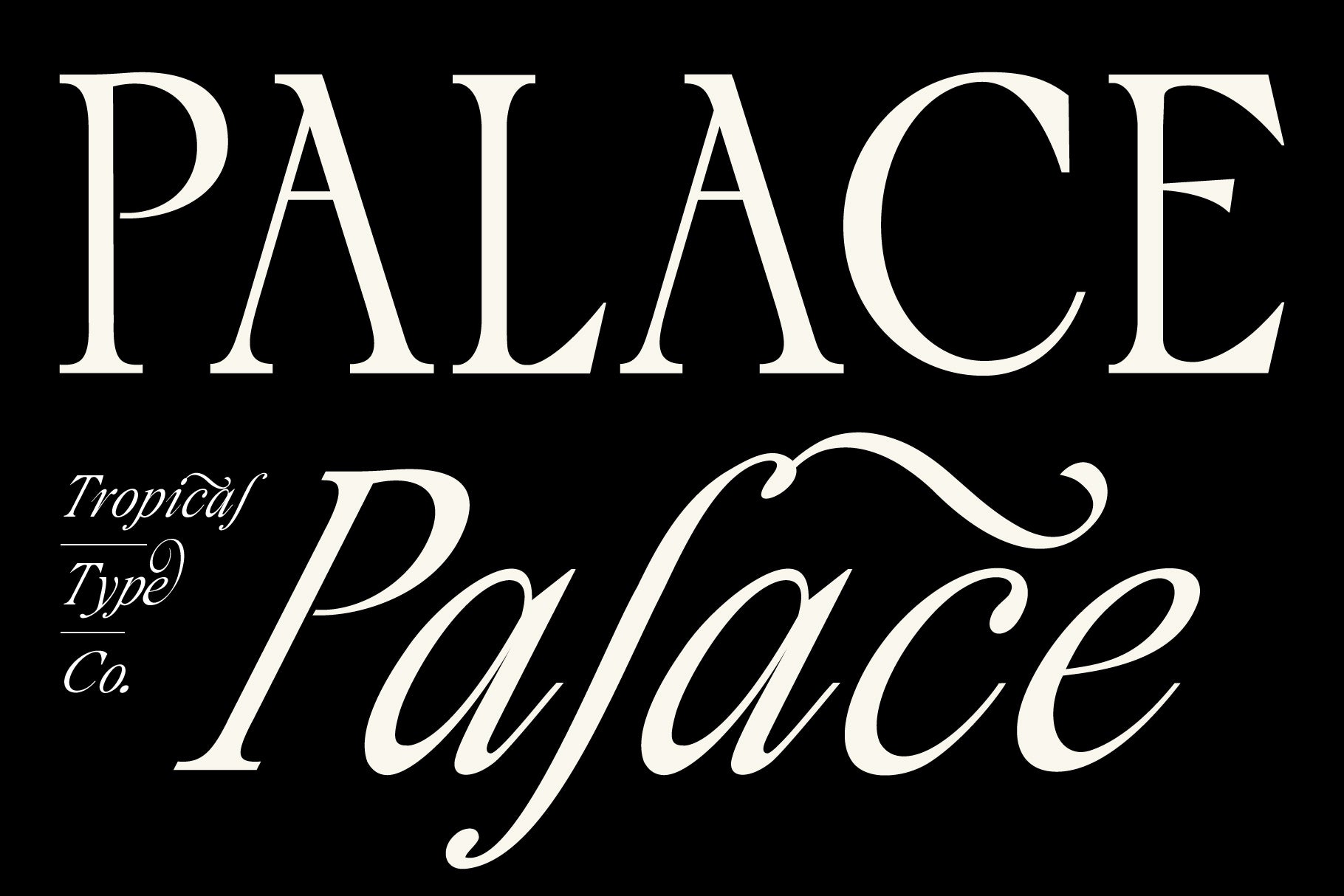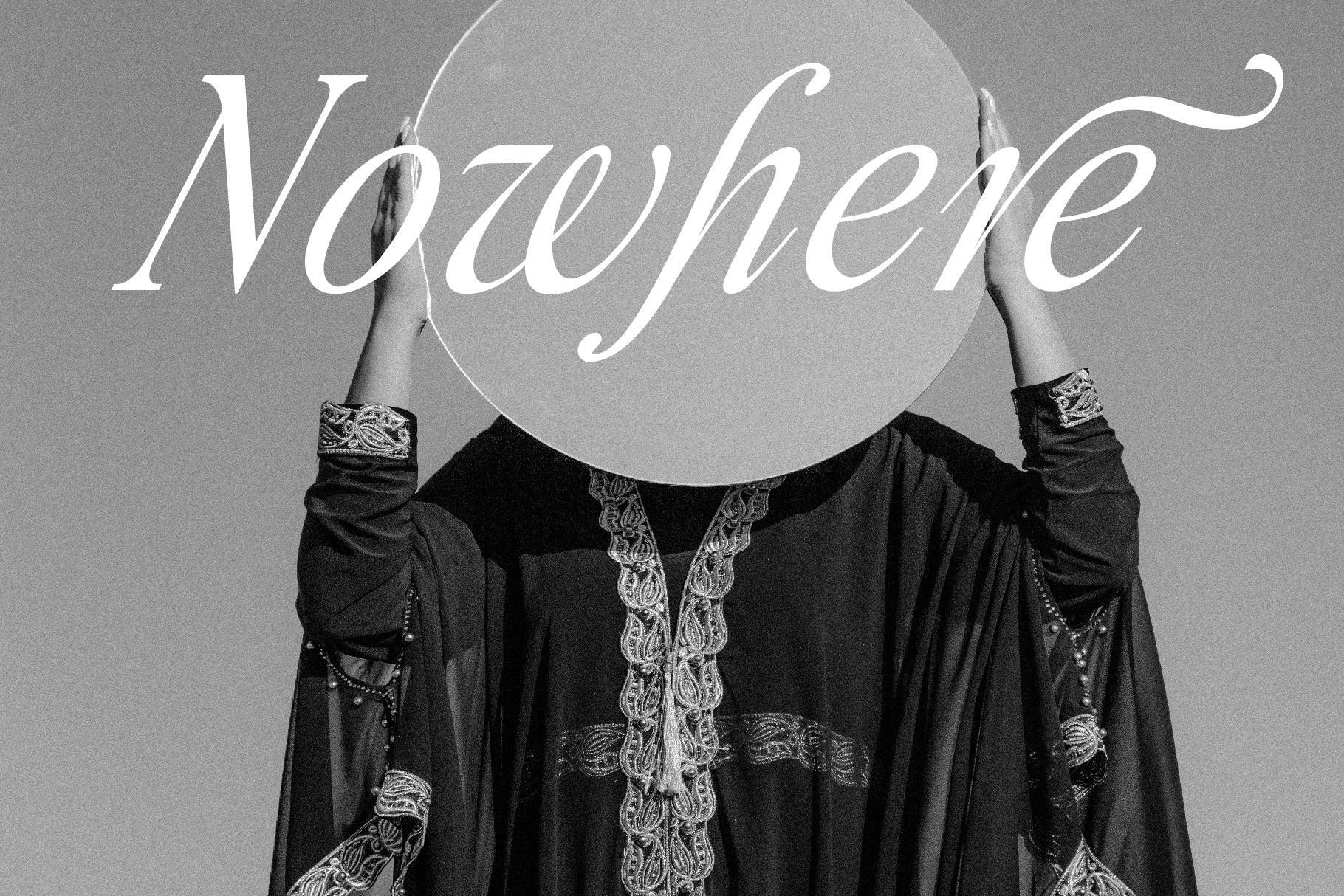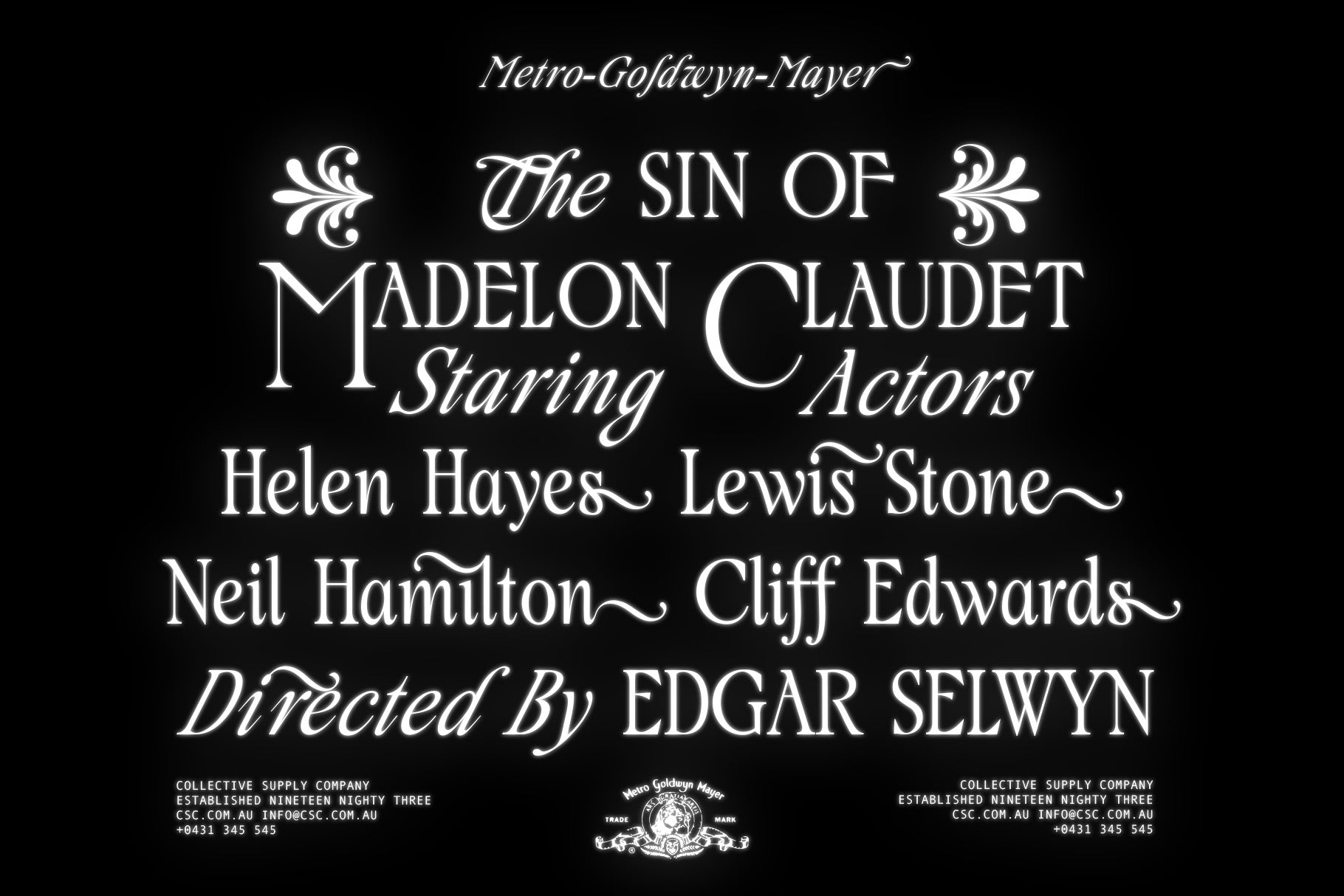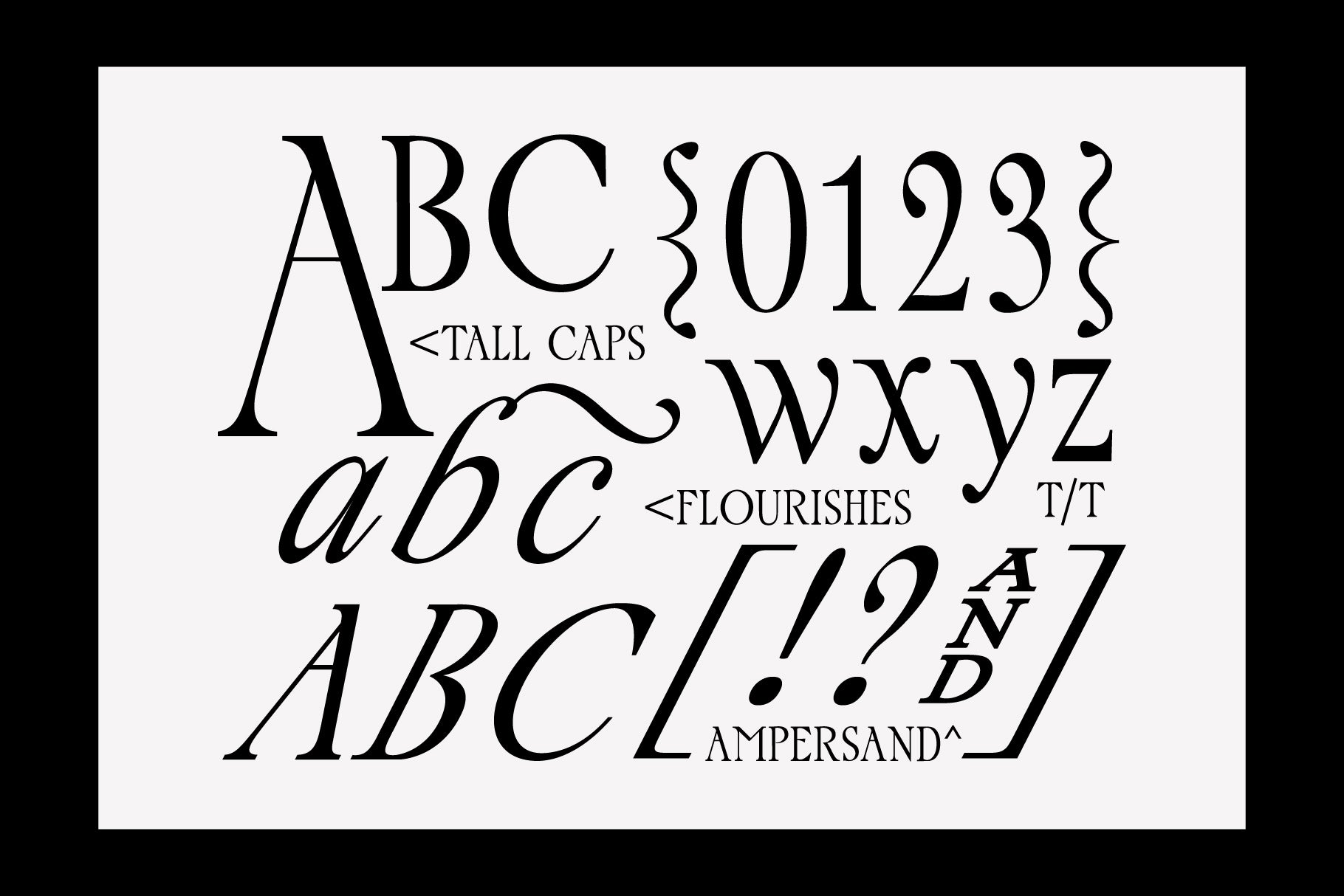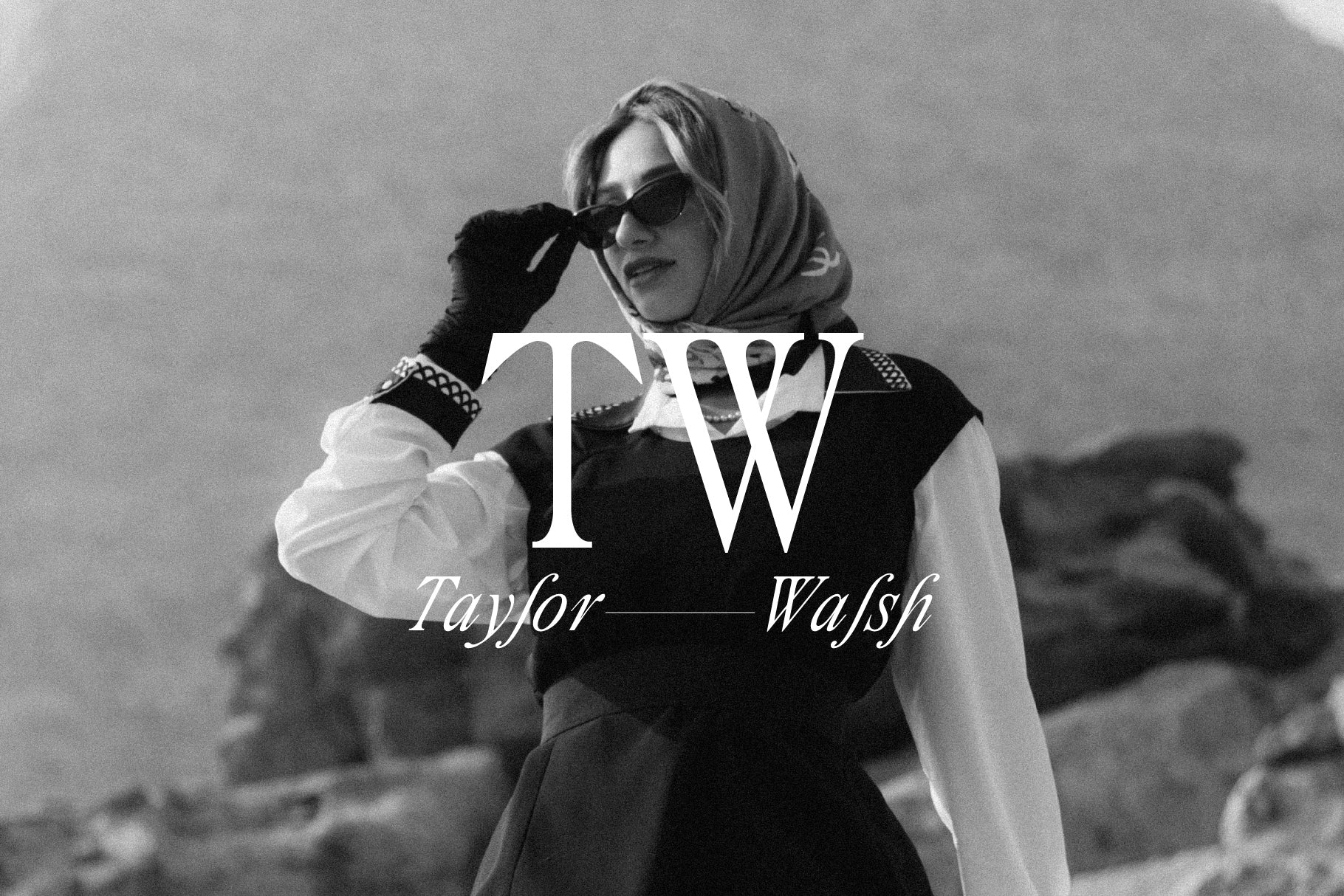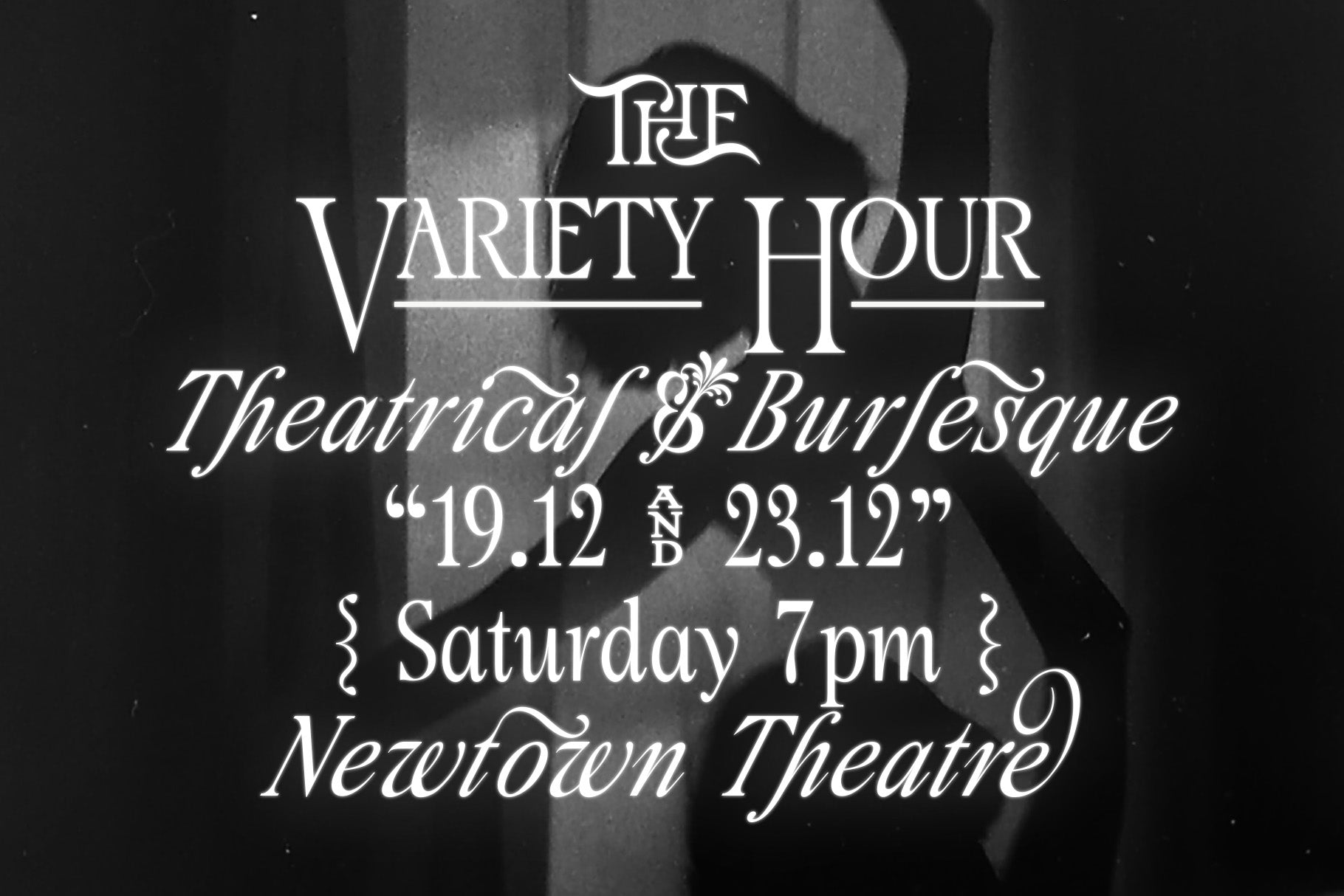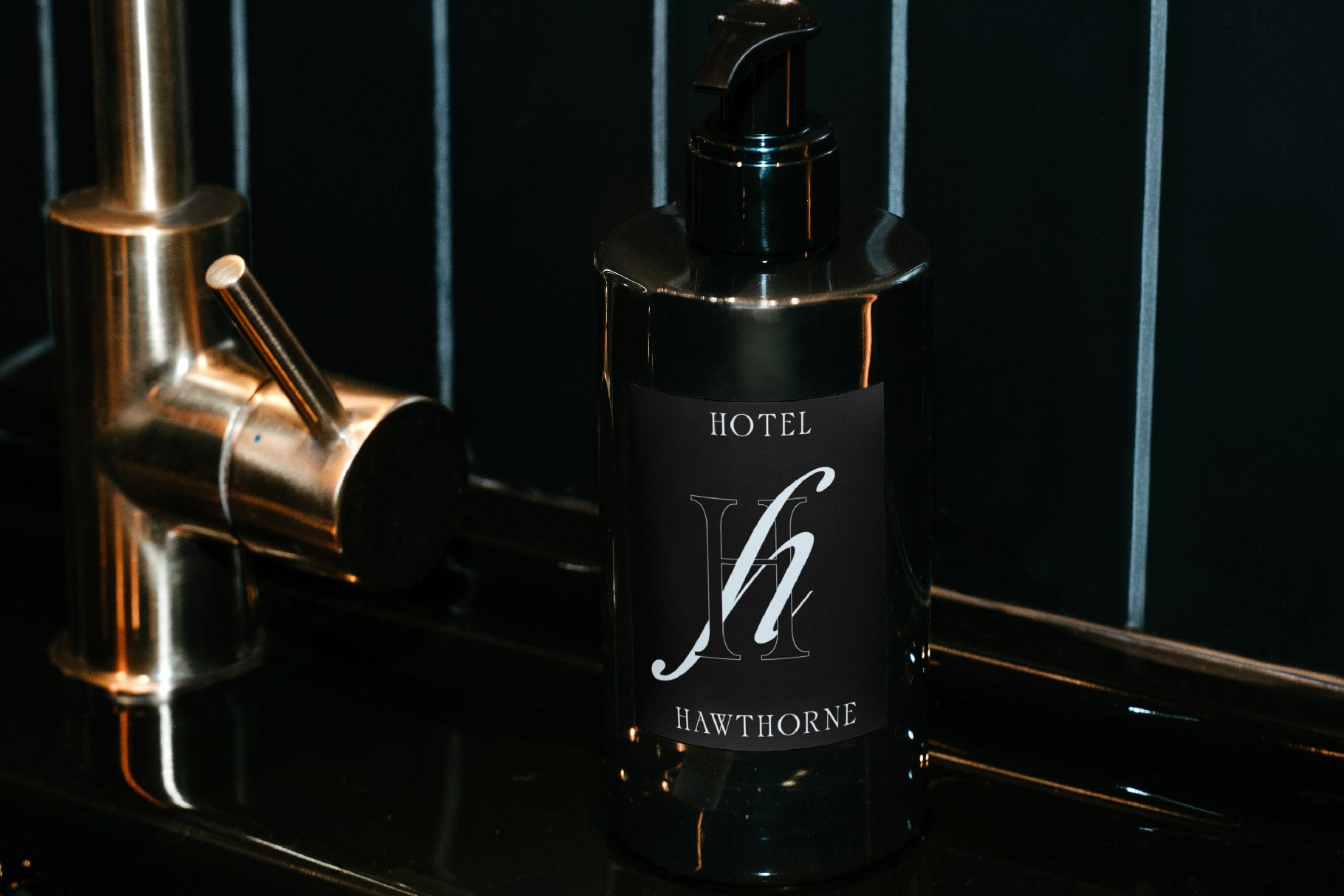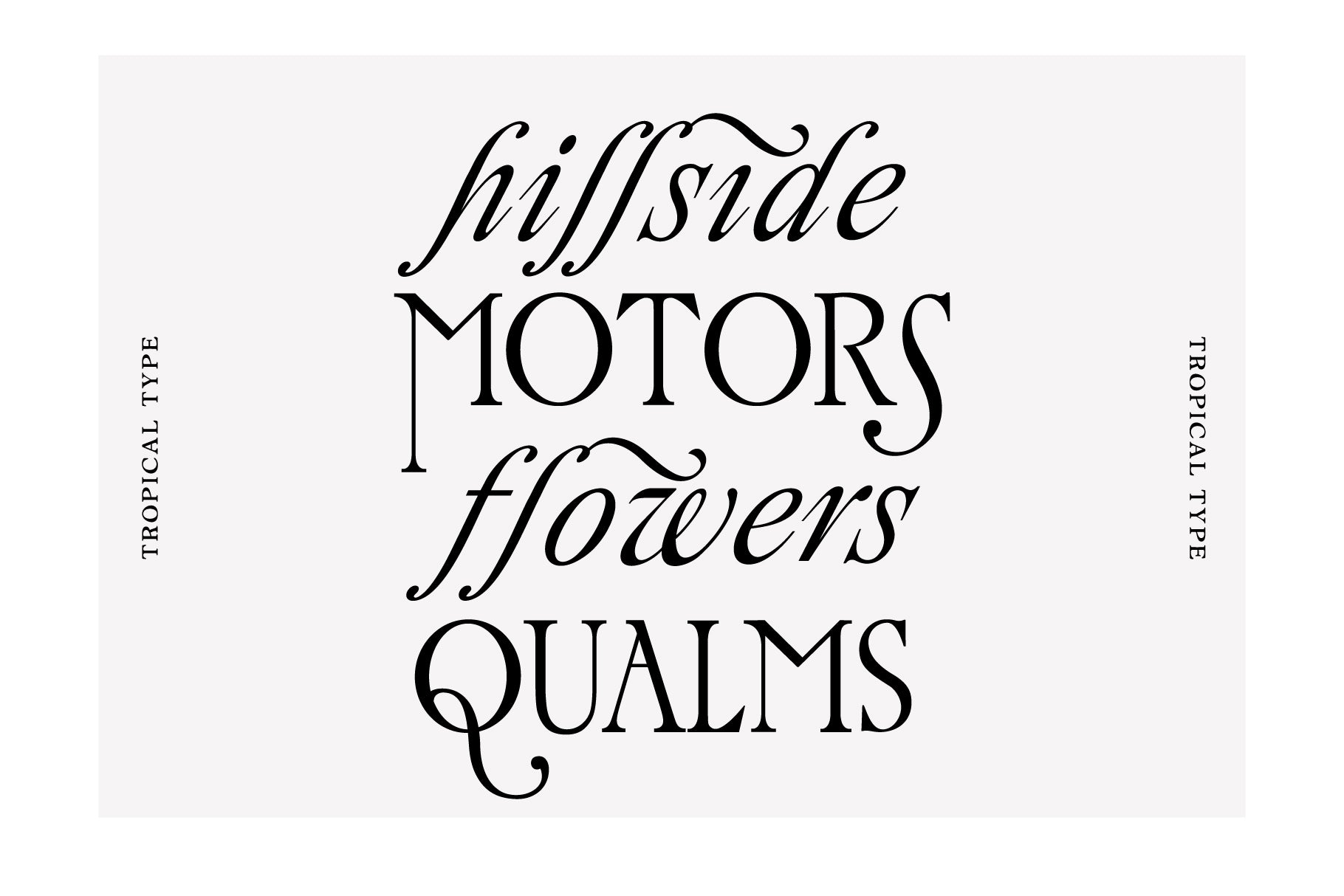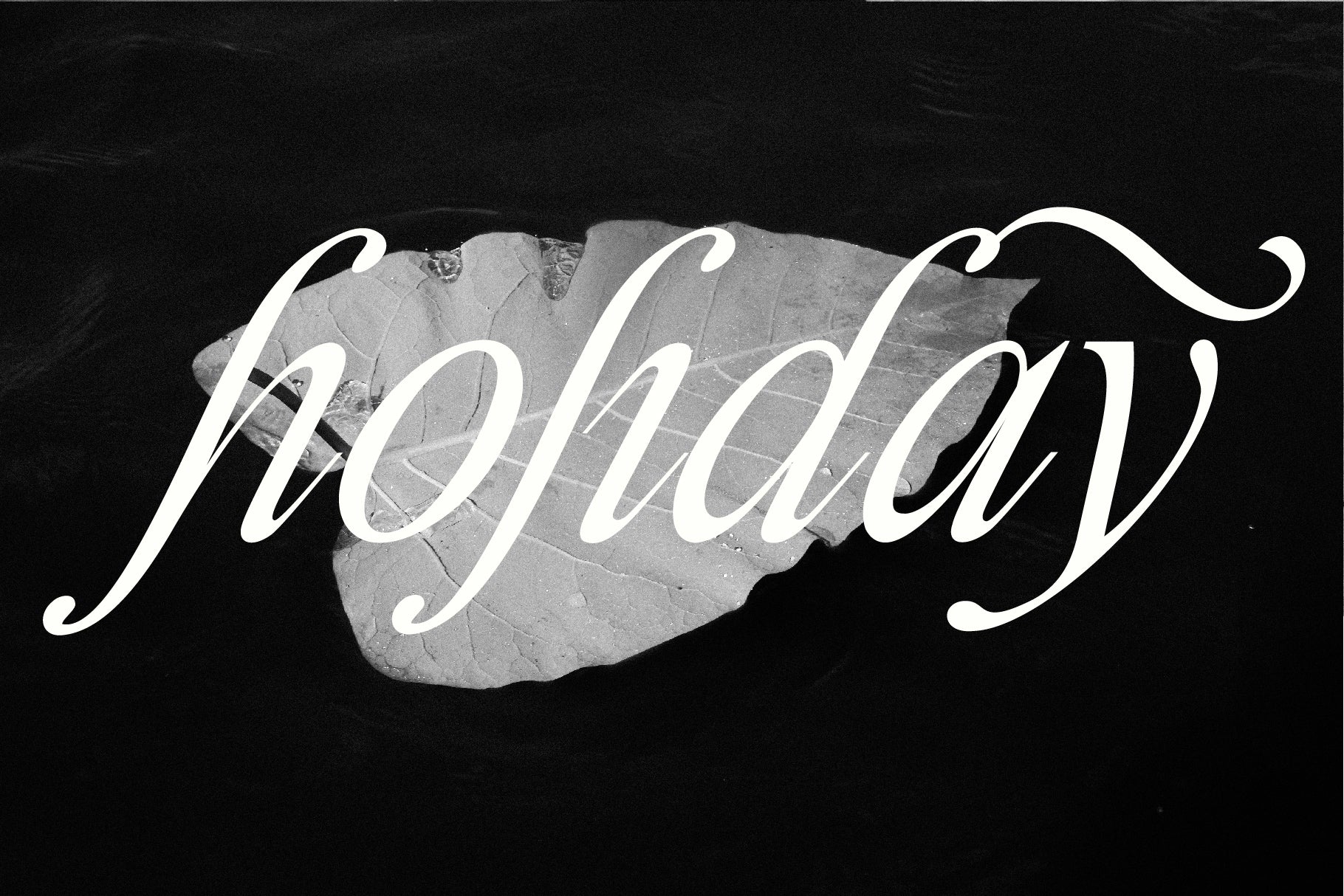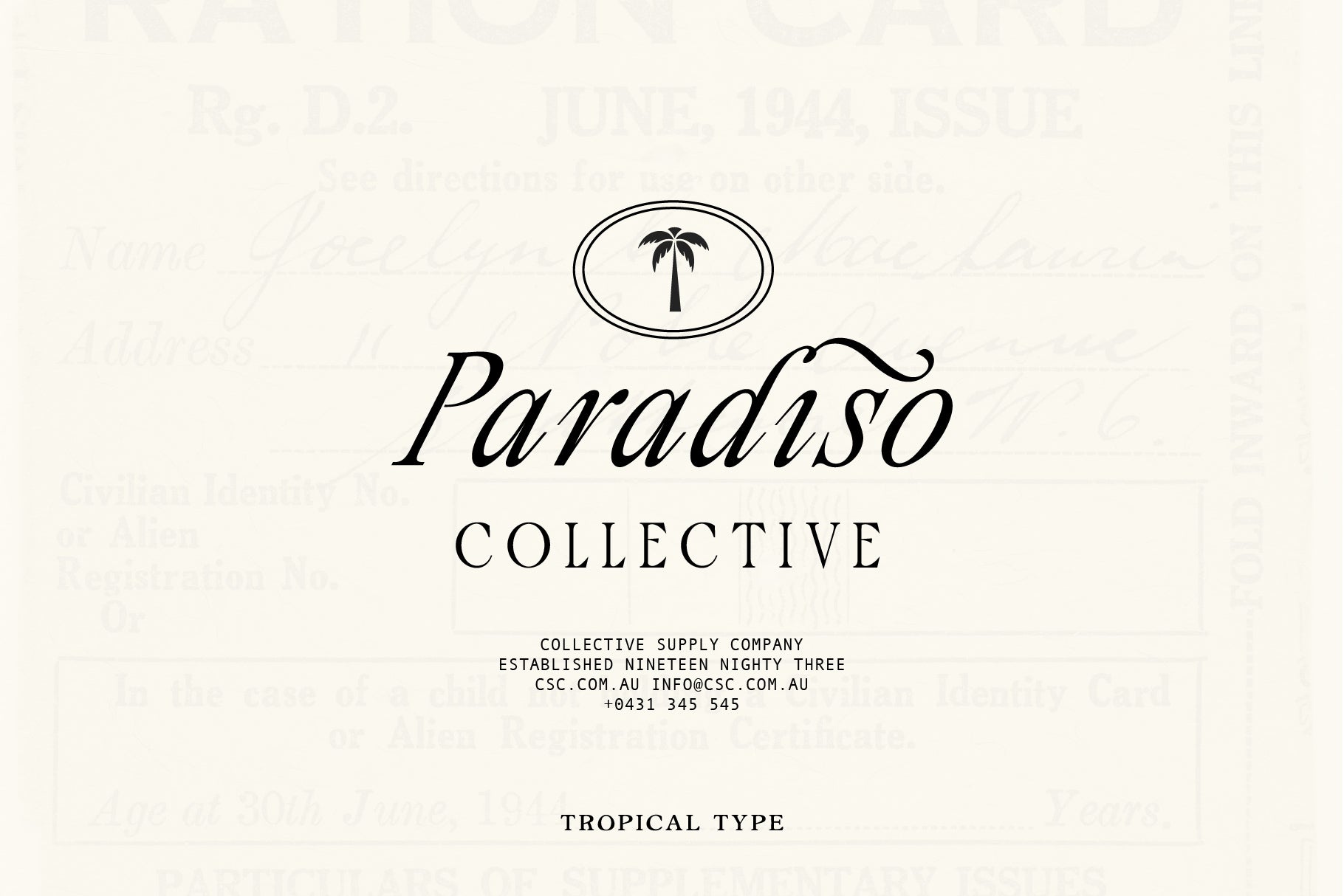
Palace Serif
Palace is a classical serif loaded with flourishes and alternates for a chic vintage feel.
It's got tall caps, italics, catchwords, multiple ampersands and more.